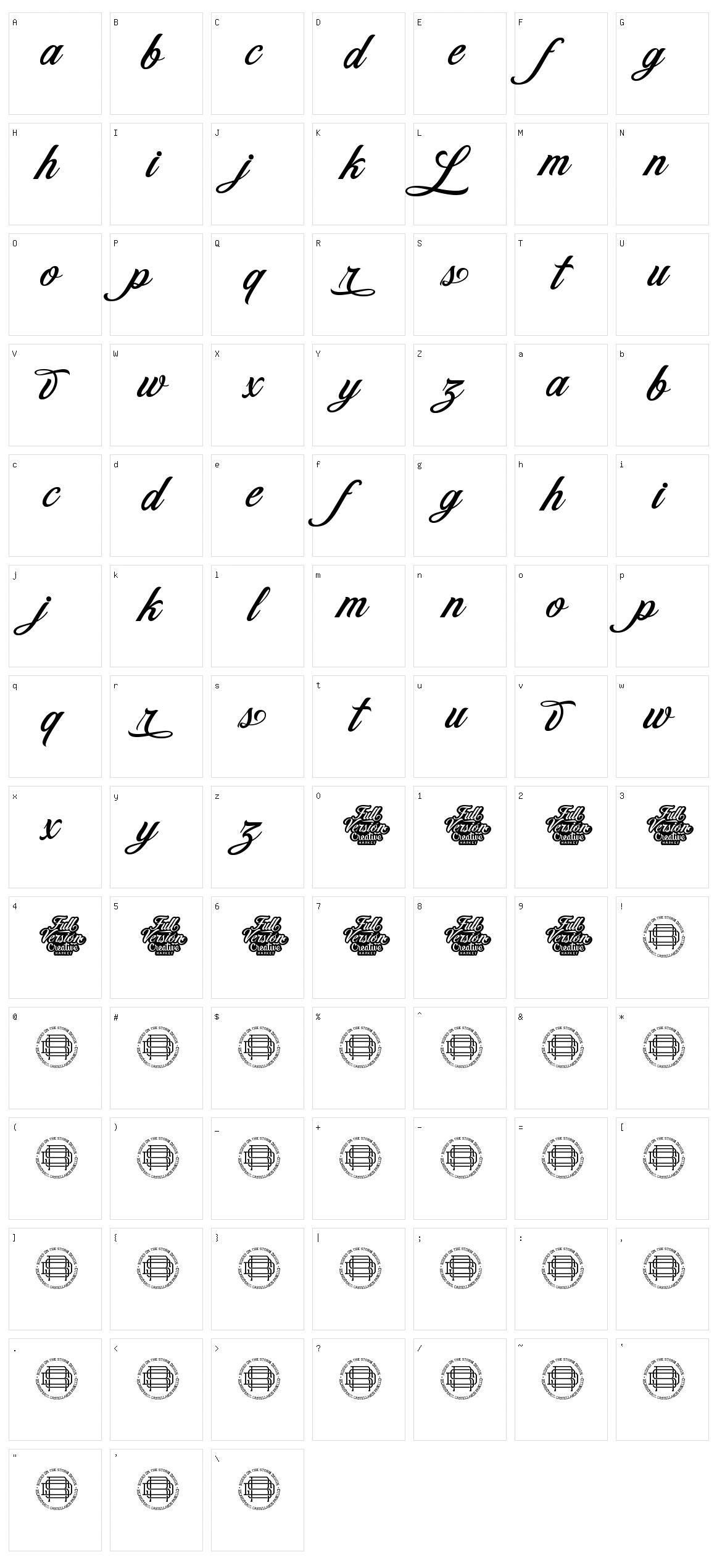
Love Letters is a typeface inspired by the Script Lettering,
created by Ricardo Saul Castellanos Pabello "Richie Mx" in the design studio "Riders on the Storm Design"
Love Letters es una tipografía inspirada en el estilo de letras Script Lettering,
creada por Ricardo Saul Castellanos Pabello "Richie Mx" en el estudio de diseño "Riders on the Storm Design"